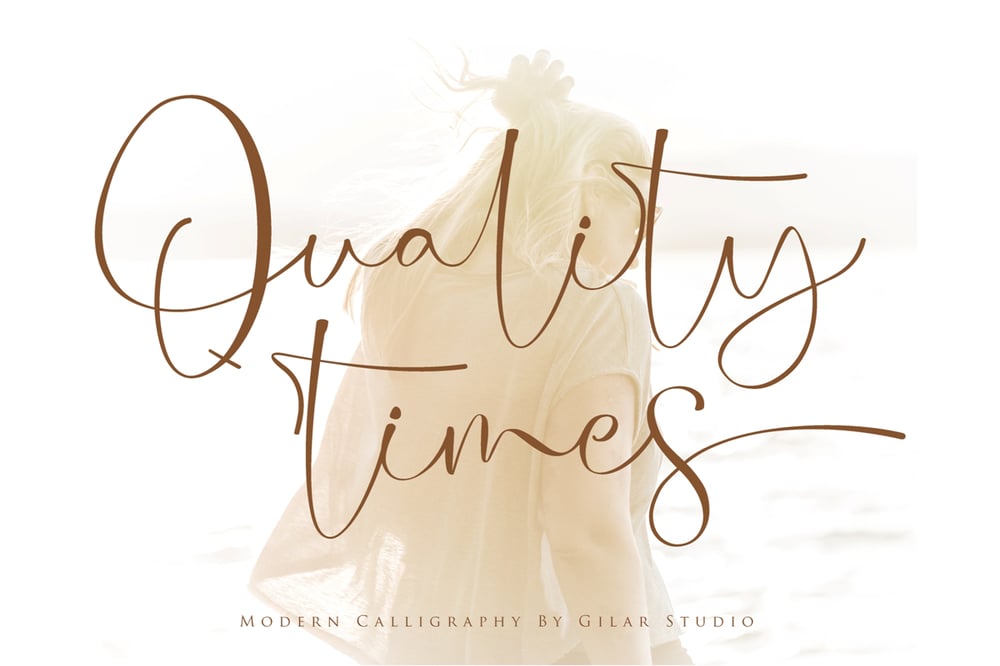
Quality Times Font Family was designed by Gumilar Pratama Adiatna and published by Gilar Studio. Quality Times contains 1 styles and family package options. Quality Times is a stylish modern calligraphy font with casual chic flair. It is perfect for branding, wedding invites and cards, and maybe for red wine label.Quality Times includes full set of gorgeous uppercase and lowercase letters, numerals, a large range of punctuation and ligatures. All lowercase letters include beginning and ending swashes, giving realistic hand-lettered style. What you get, darling?In order to use the beautiful swashes, you need a program that supports OpenType features such as Adobe Illustrator CS, Adobe Photoshop CC, Adobe Indesign and Corel Draw.Check my other Font here : https://gilarstudio.com/